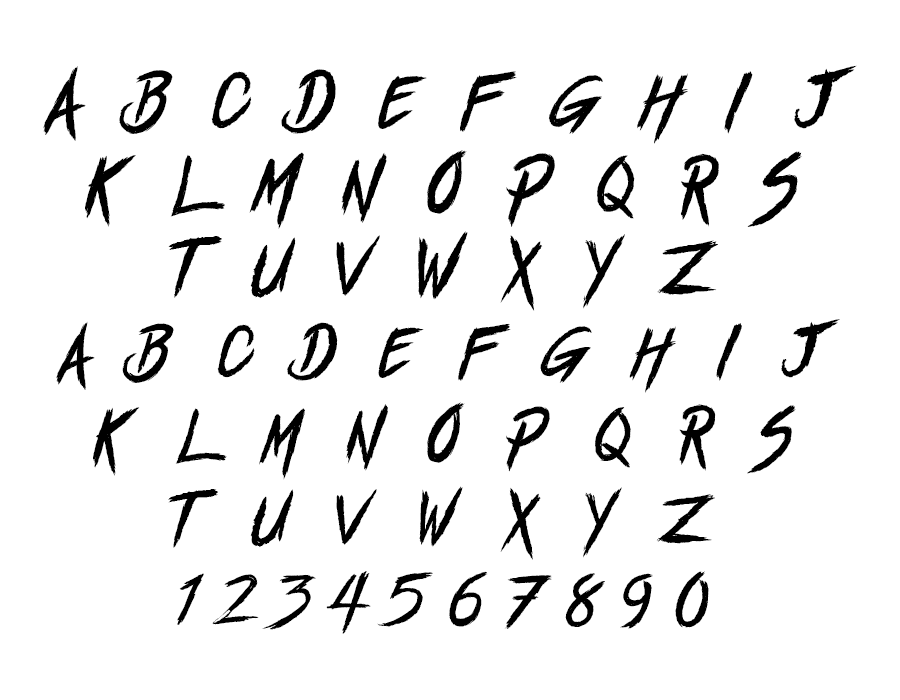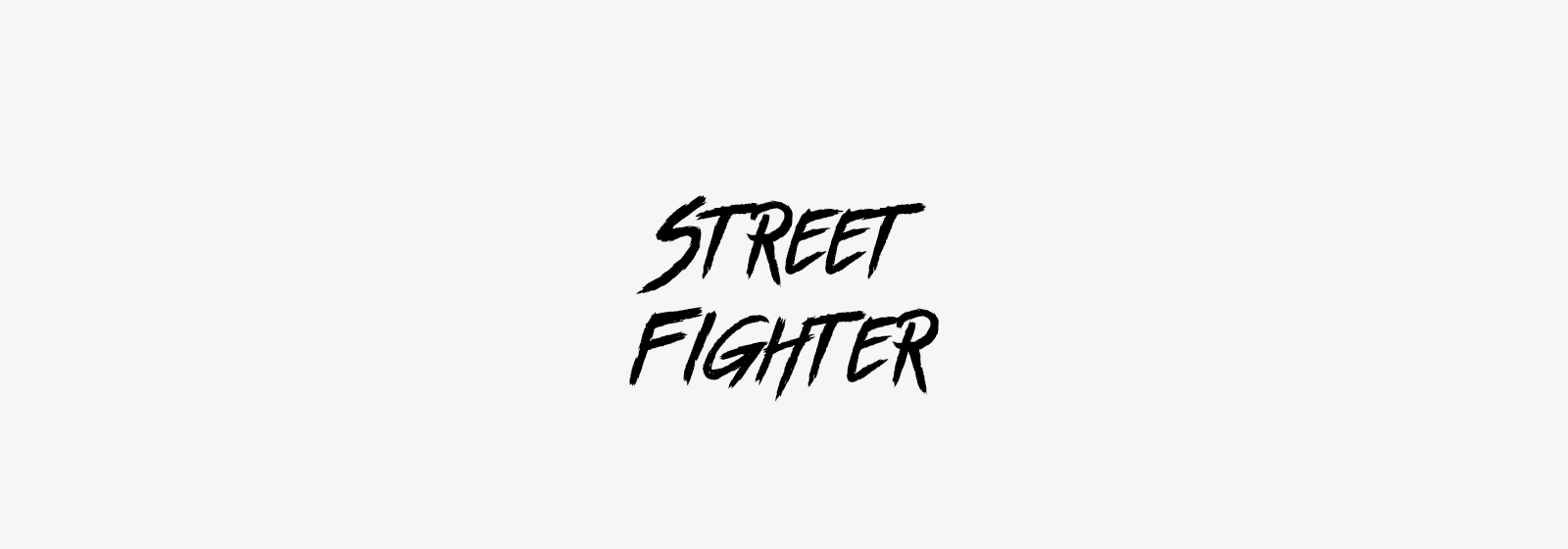
Street Fighter Font captures the bold and dynamic style of the famous video game logo. Its sharp edges and powerful curves reflect the energy and excitement of arcade fighting games. Designers use this font for posters, gaming artwork, logos, and projects that need a strong, action-packed look. Street Fighter Font adds intensity and motion to any design.